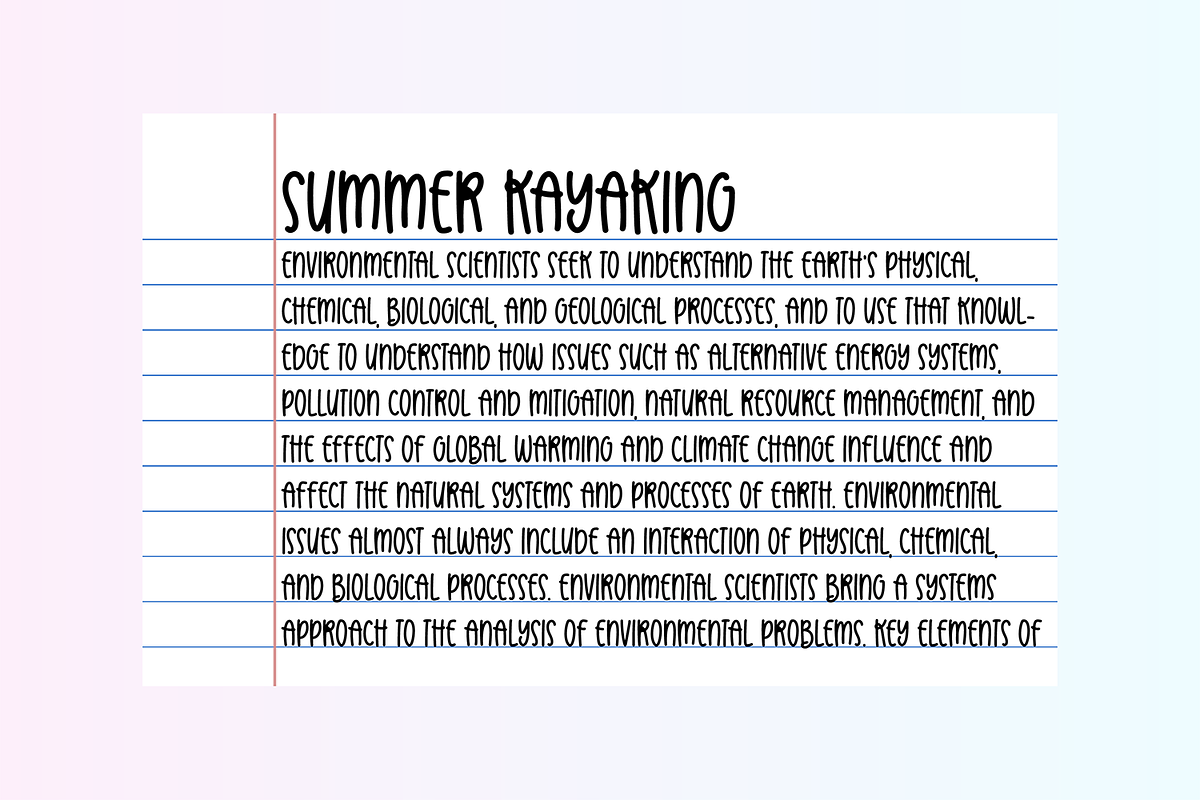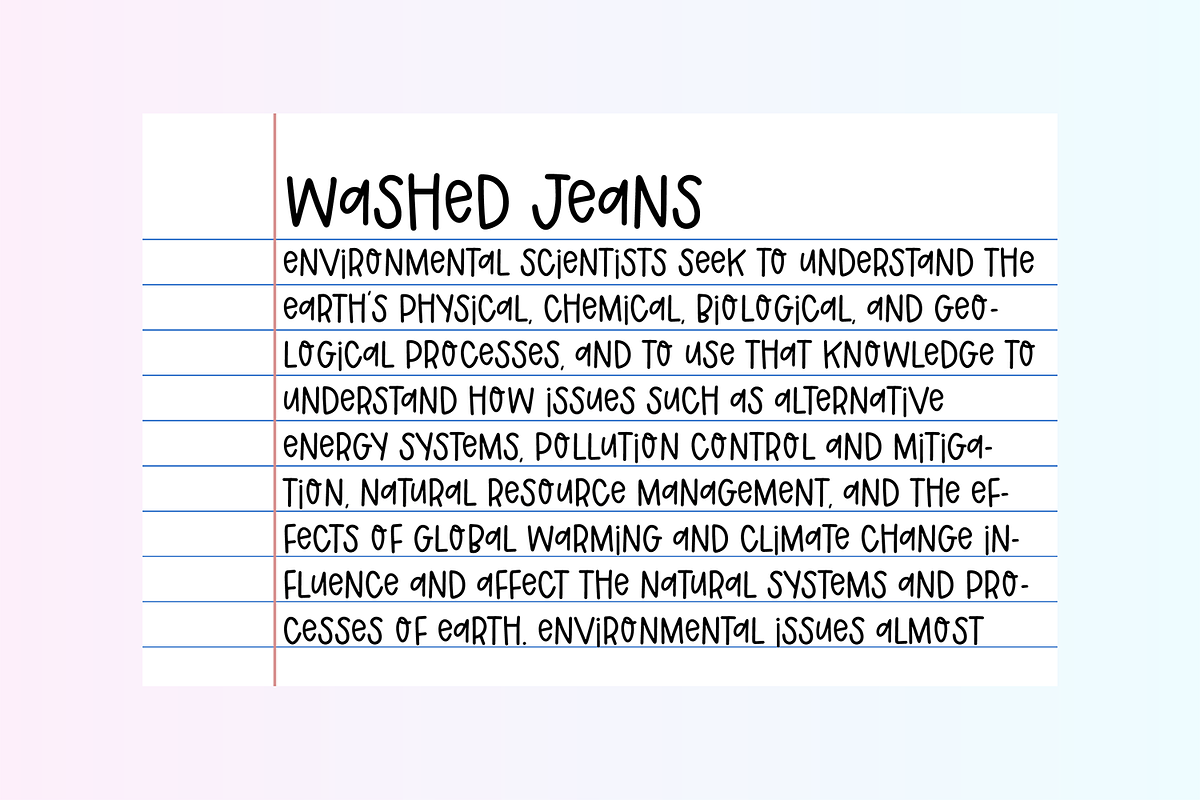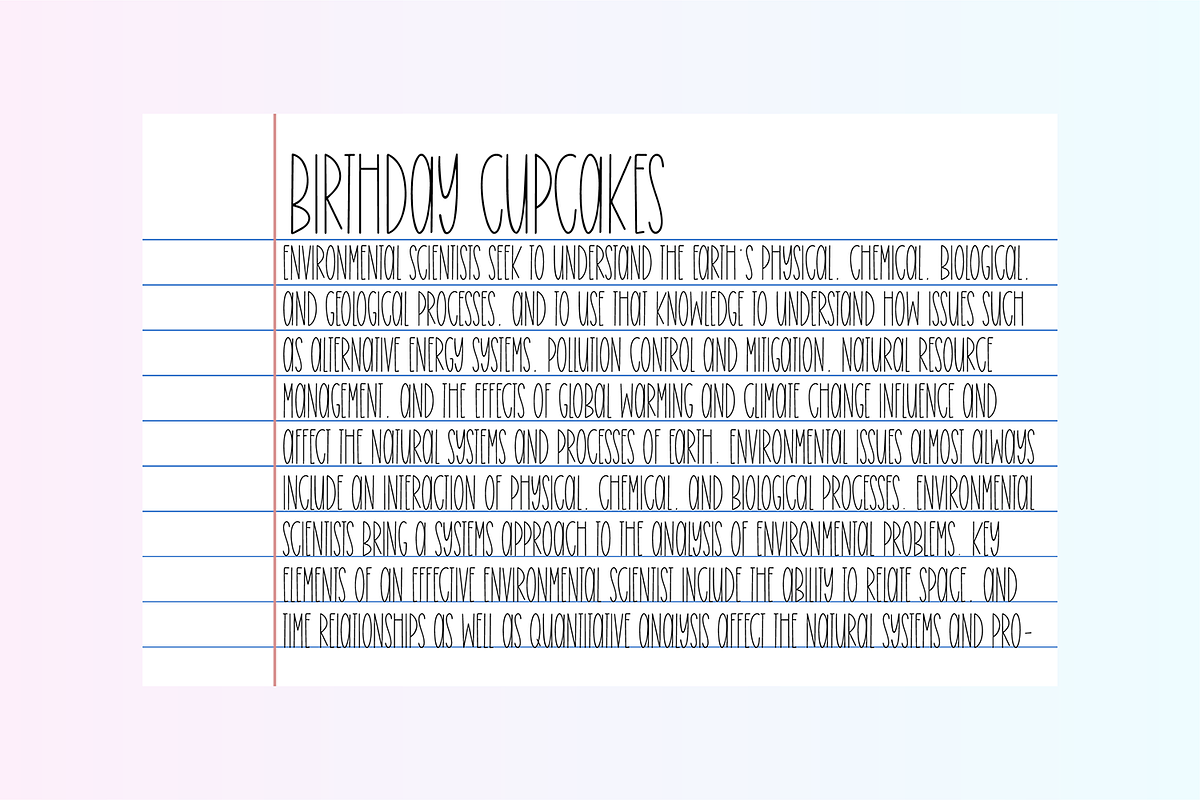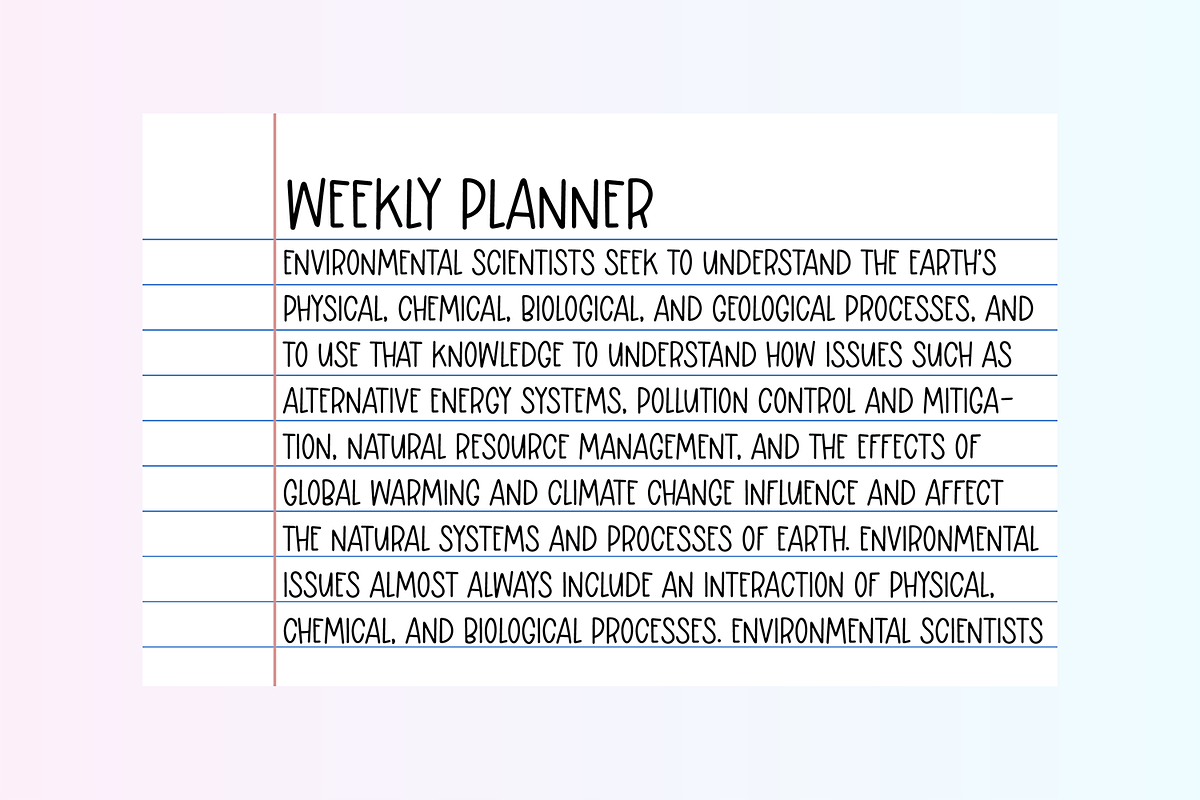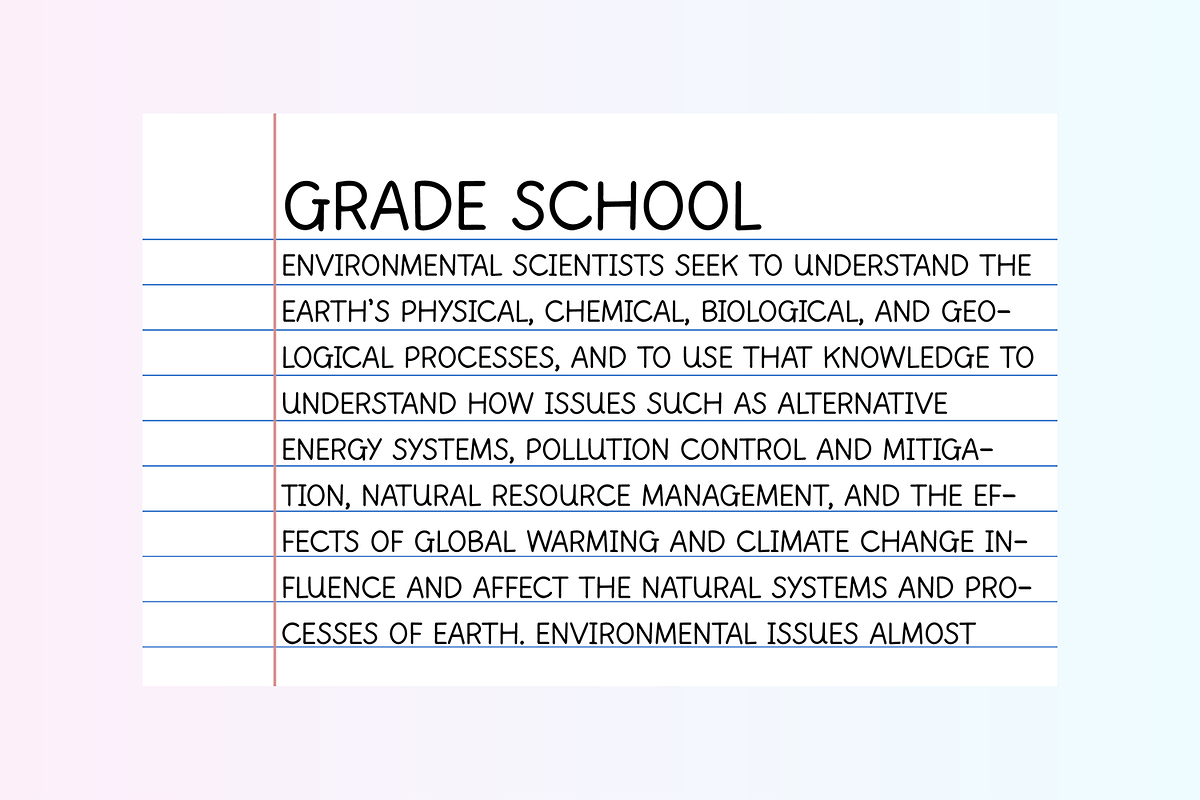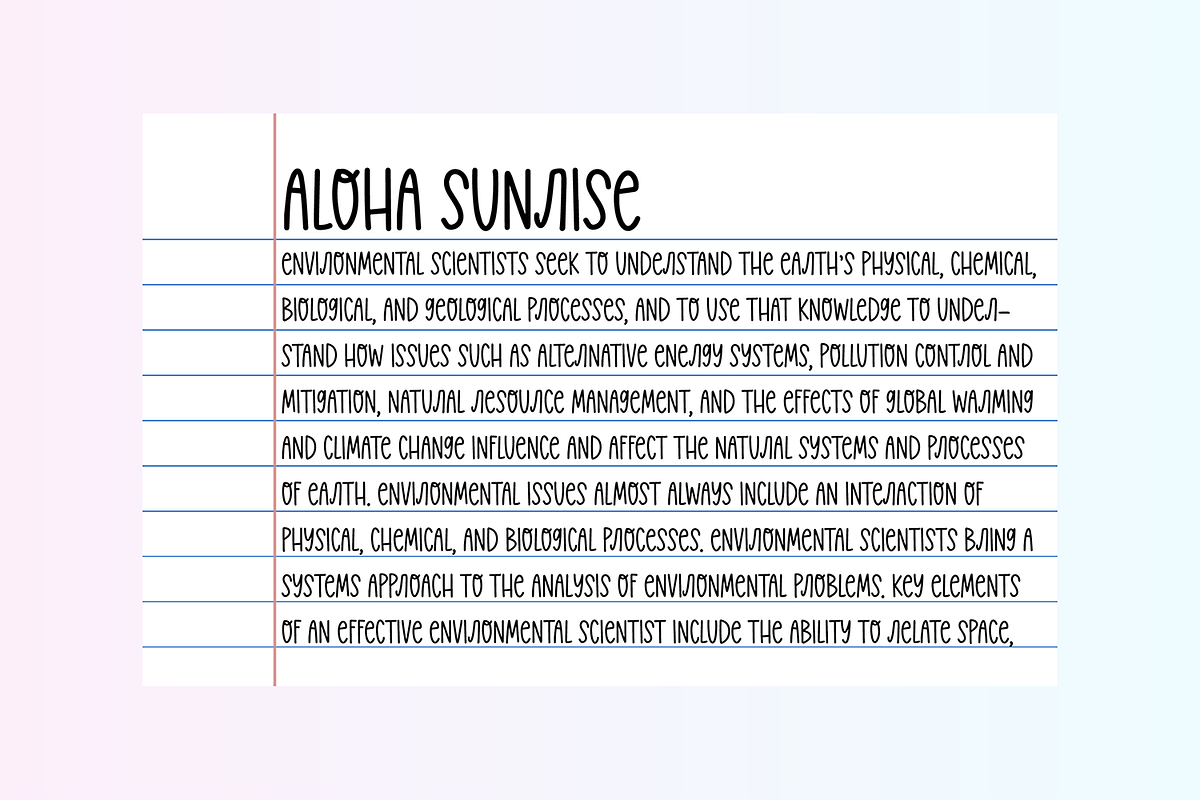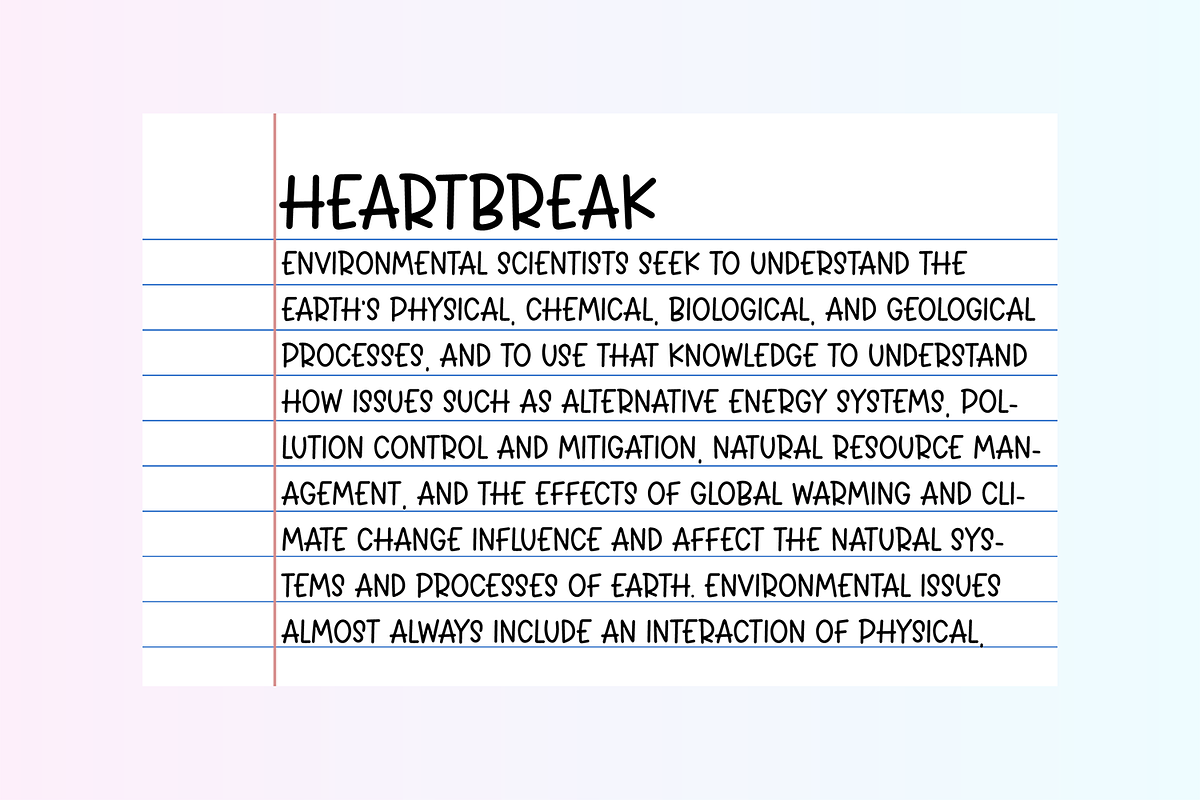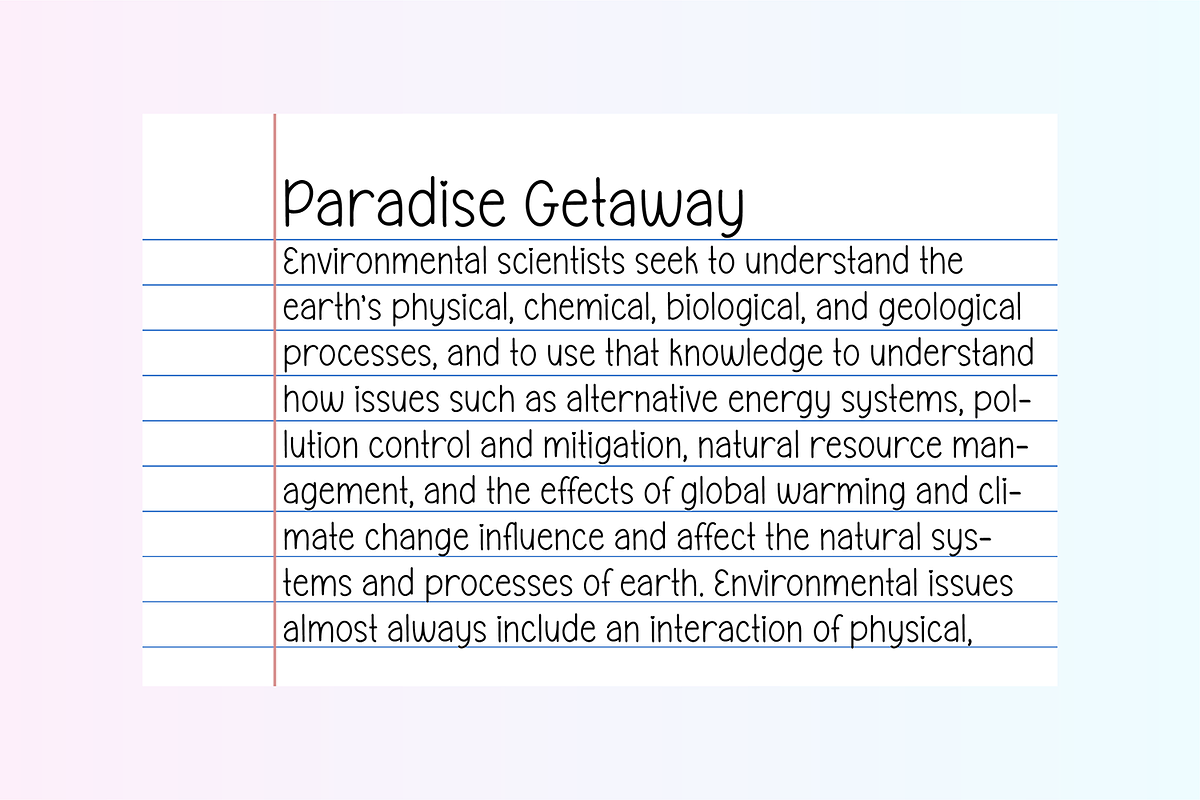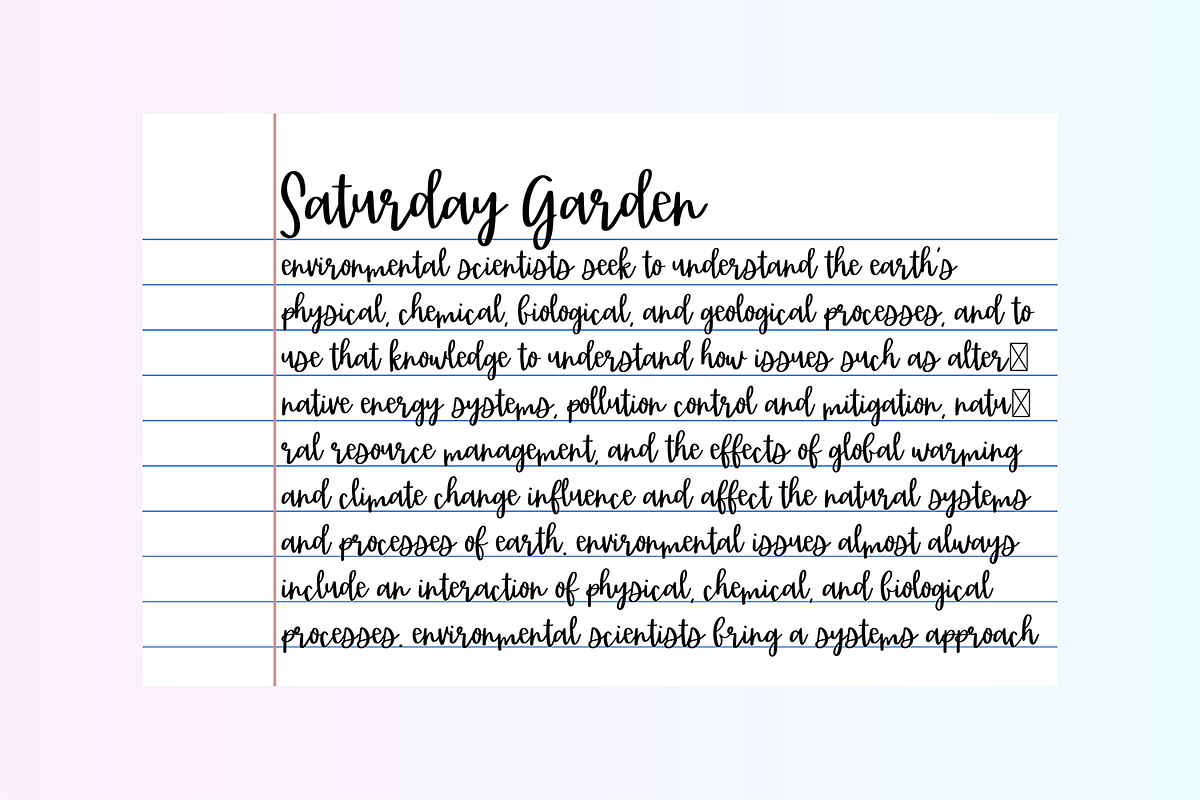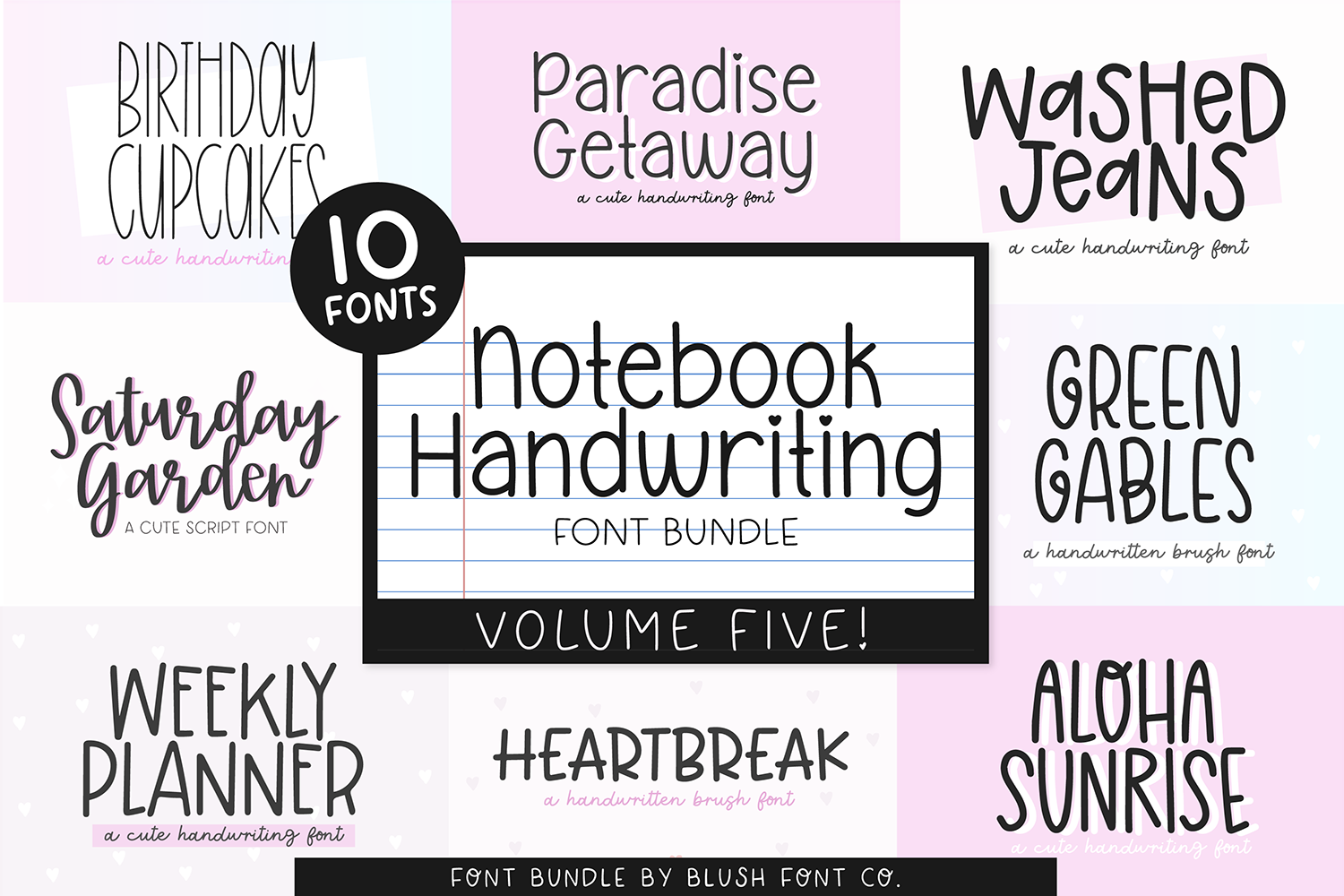
NOTEBOOK HANDWRITING Font Bundle V5
NOTEBOOK HANDWRITING Font Bundle Vol. 5 - 10 fonts!
10 fonts specialized for note-taking.
Fonts Included:
BIRTHDAY CUPCAKES PARADISE GETAWAY WASHED JEANS SATURDAY GARDEN GREEN GABLES WEEKLY PLANNER HEART BREAK ALOHA SUNRISE SUMMER KAYAKING GRADE SCHOOL